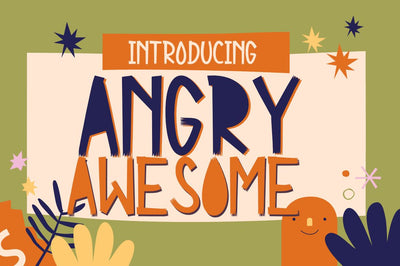
Angry Awesome Cutout font
Say hello to Angry Awesome! A playful all caps cutout-style font. Lowercase letters have filled letters (A,O,B etc) and the Uppercase keys have the regular unfilled letters. Pick and choose which letters you want filled to get the look you are after :)
Great for greeting cards, quotes, social media posts, posters, playful branding, and so much more!
- - Uppercase and Lowercase letters
- - Numbering and Punctuations